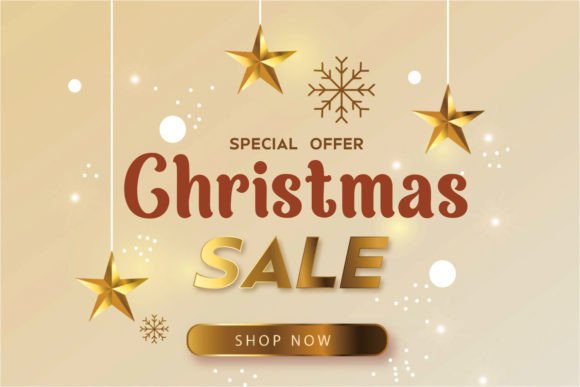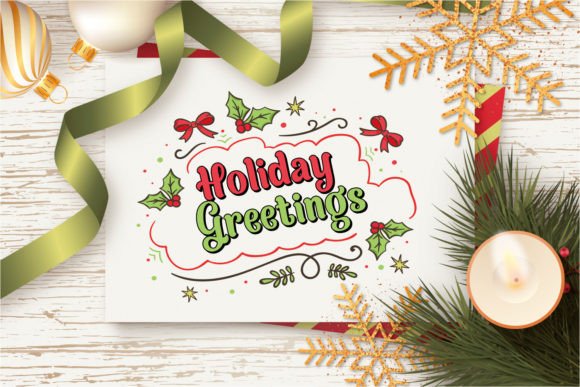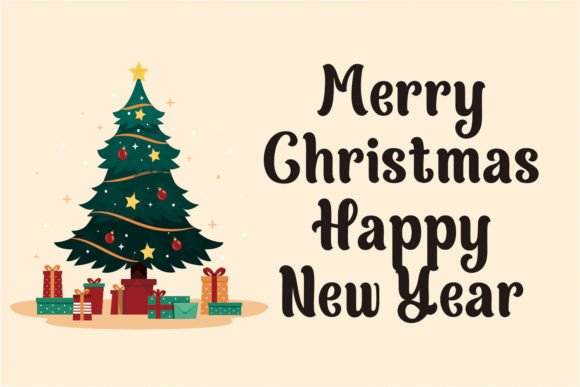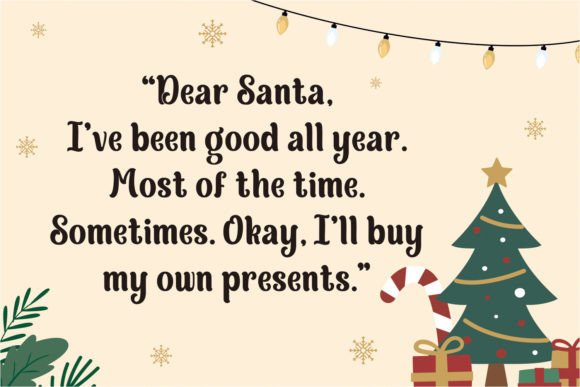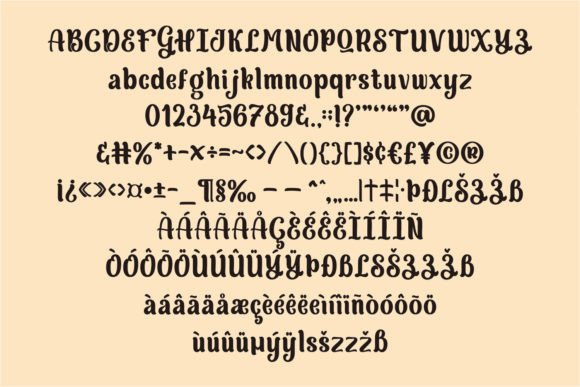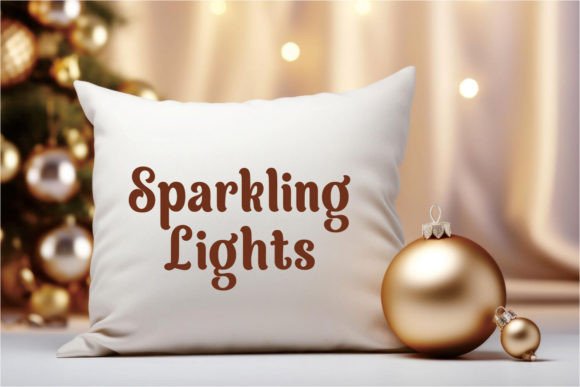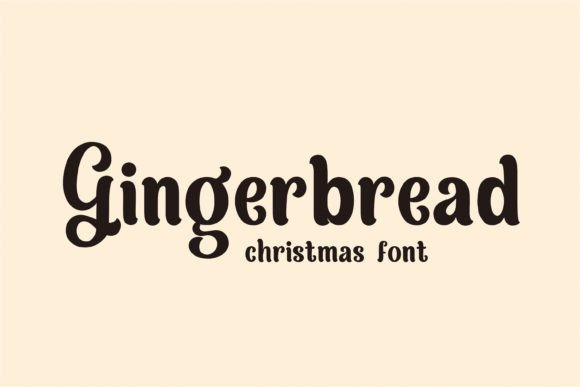
Gingerbread Font: The Perfect Addition to Your Design Collection
Are you on the hunt for a font that can add a touch of whimsy and charm to your designs? Look no further than the Gingerbread font! This authentic script font is perfect for a wide range of creative projects, from branding and logo design to t-shirt printing and food-related projects. In this article, we’ll dive into the world of Gingerbread font and explore its features, benefits, and uses.
What is Gingerbread Font?
Gingerbread font is a delightful and playful script font that is sure to capture the attention of your audience. Its unique character and style make it an excellent choice for creating eye-catching visuals that resonate with audiences of all ages. Whether you’re working on a kid-themed design, food packaging, or fun, light-hearted branding projects, Gingerbread font is the perfect addition to your design collection.
Features of Gingerbread Font
So, what makes Gingerbread font so special? Here are just a few of its key features:
• Authentic Script Font: Gingerbread font is an authentic script font that is perfect for adding a touch of elegance and sophistication to your designs.
• Delightful and Playful Vibe: This font has a delightful and playful vibe that makes it perfect for kid-themed designs, food packaging, and fun, light-hearted branding projects.
• Versatile: Gingerbread font is incredibly versatile and can be used for a wide range of creative projects, from branding and logo design to t-shirt printing and food-related projects.
• Unique Character and Style: This font has a unique character and style that makes it stand out from the crowd and ensures it makes a memorable impact.
Benefits of Using Gingerbread Font
So, why should you choose Gingerbread font for your next design project? Here are just a few of the benefits of using this amazing font:
• Adds a Touch of Whimsy and Charm: Gingerbread font adds a touch of whimsy and charm to any design, making it perfect for kid-themed designs, food packaging, and fun, light-hearted branding projects.
• Eye-Catching Visuals: This font creates eye-catching visuals that resonate with audiences of all ages, ensuring your design stands out from the crowd.
• Memorable Impact: Gingerbread font makes a memorable impact, no matter where it’s used, ensuring your design is not forgotten.
• Perfect for a Wide Range of Projects: This font is perfect for a wide range of creative projects, from branding and logo design to t-shirt printing and food-related projects.
Uses of Gingerbread Font
So, what can you use Gingerbread font for? Here are just a few ideas to get you started:
• Branding and Logo Design: Use Gingerbread font to create a unique and memorable brand identity that stands out from the crowd.
• T-Shirt Printing: This font is perfect for t-shirt printing, adding a touch of whimsy and charm to any design.
• Food-Related Projects: Gingerbread font is perfect for food-related projects, such as food packaging, menus, and recipe books.
• Kid-Themed Designs: This font is perfect for kid-themed designs, such as children’s books, toys, and games.
In conclusion, Gingerbread font is a delightful and playful script font that is perfect for a wide range of creative projects. Its unique character and style make it an excellent choice for creating eye-catching visuals that resonate with audiences of all ages. Whether you’re working on branding, logo design, t-shirt printing, or food-related projects, Gingerbread font is the perfect addition to your design collection. So why wait? Download Gingerbread font today and start adding a touch of whimsy and charm to your designs!
Key Takeaways
• Gingerbread font is an authentic script font with a delightful and playful vibe.
• This font is perfect for a wide range of creative projects, from branding and logo design to t-shirt printing and food-related projects.
• Gingerbread font adds a touch of whimsy and charm to any design, making it perfect for kid-themed designs, food packaging, and fun, light-hearted branding projects.
• This font creates eye-catching visuals that resonate with audiences of all ages, ensuring your design stands out from the crowd.